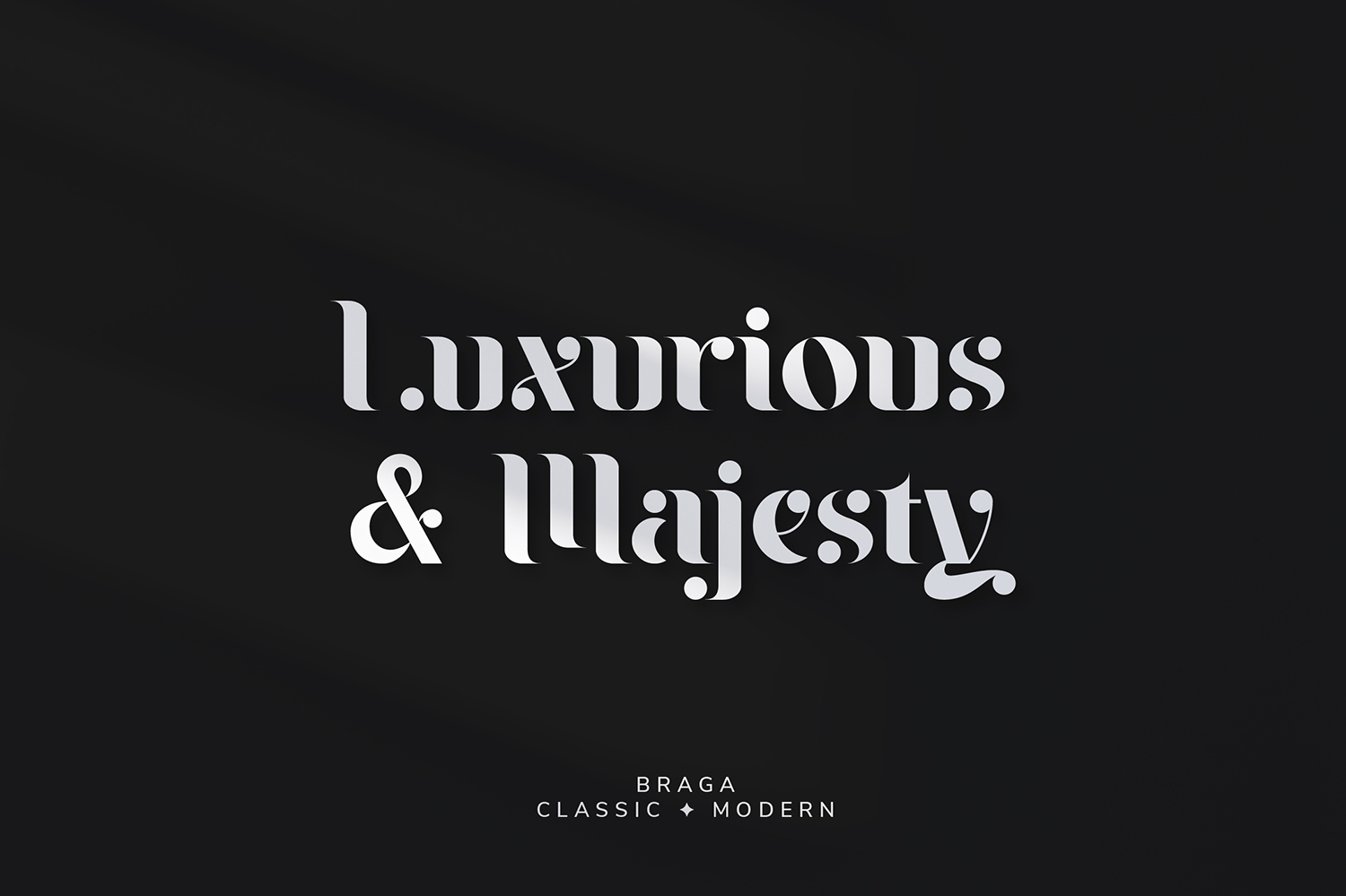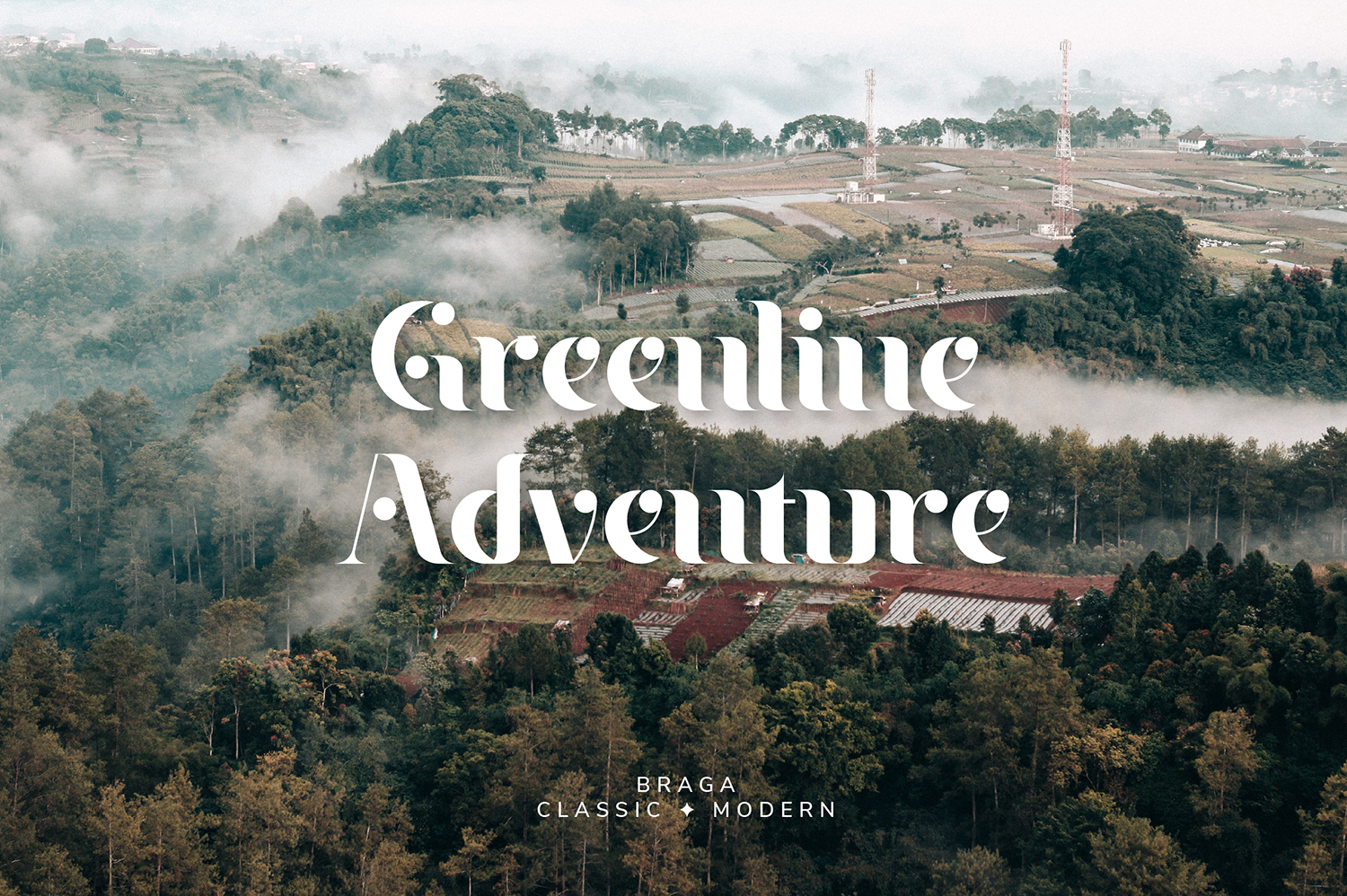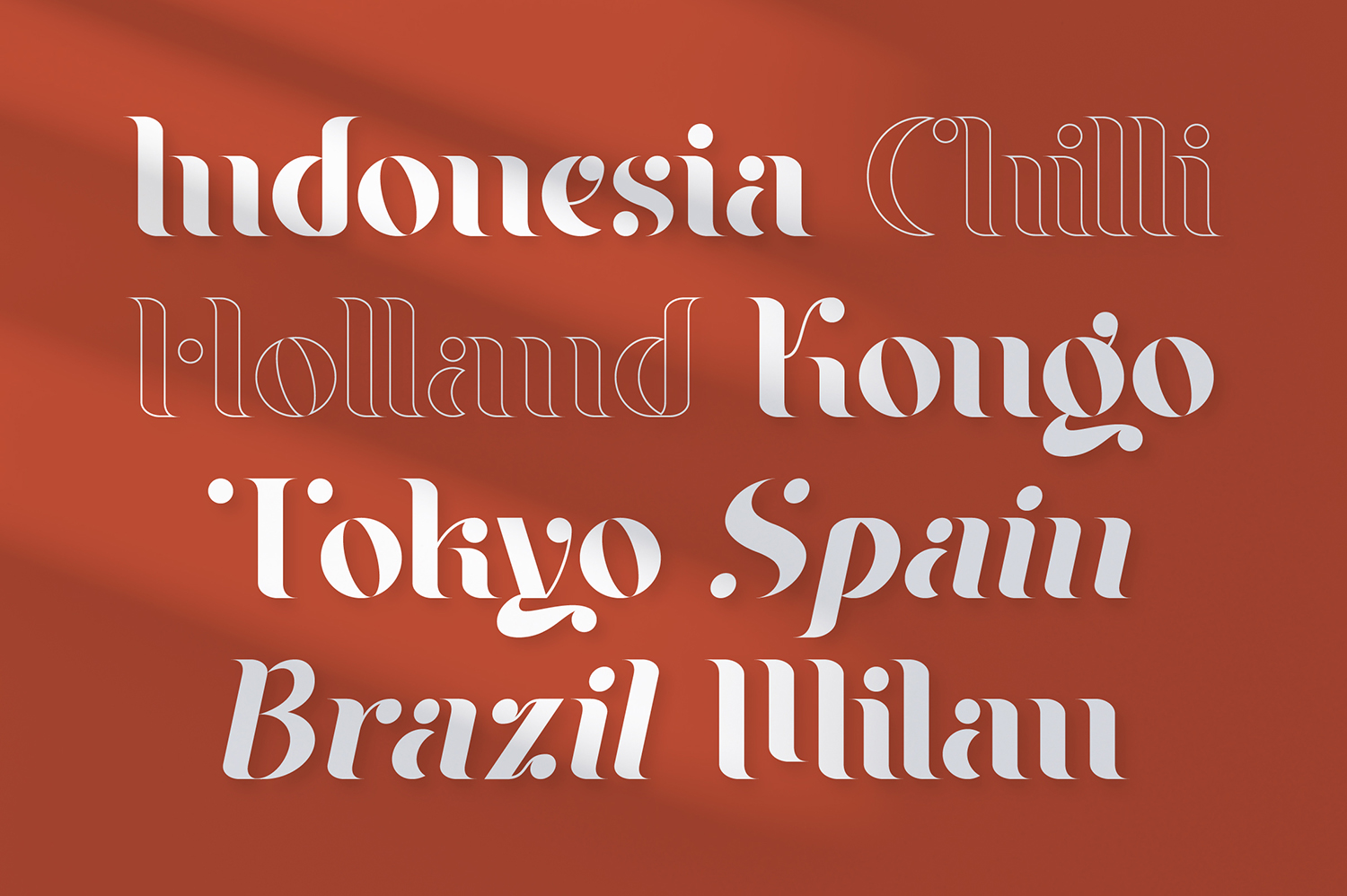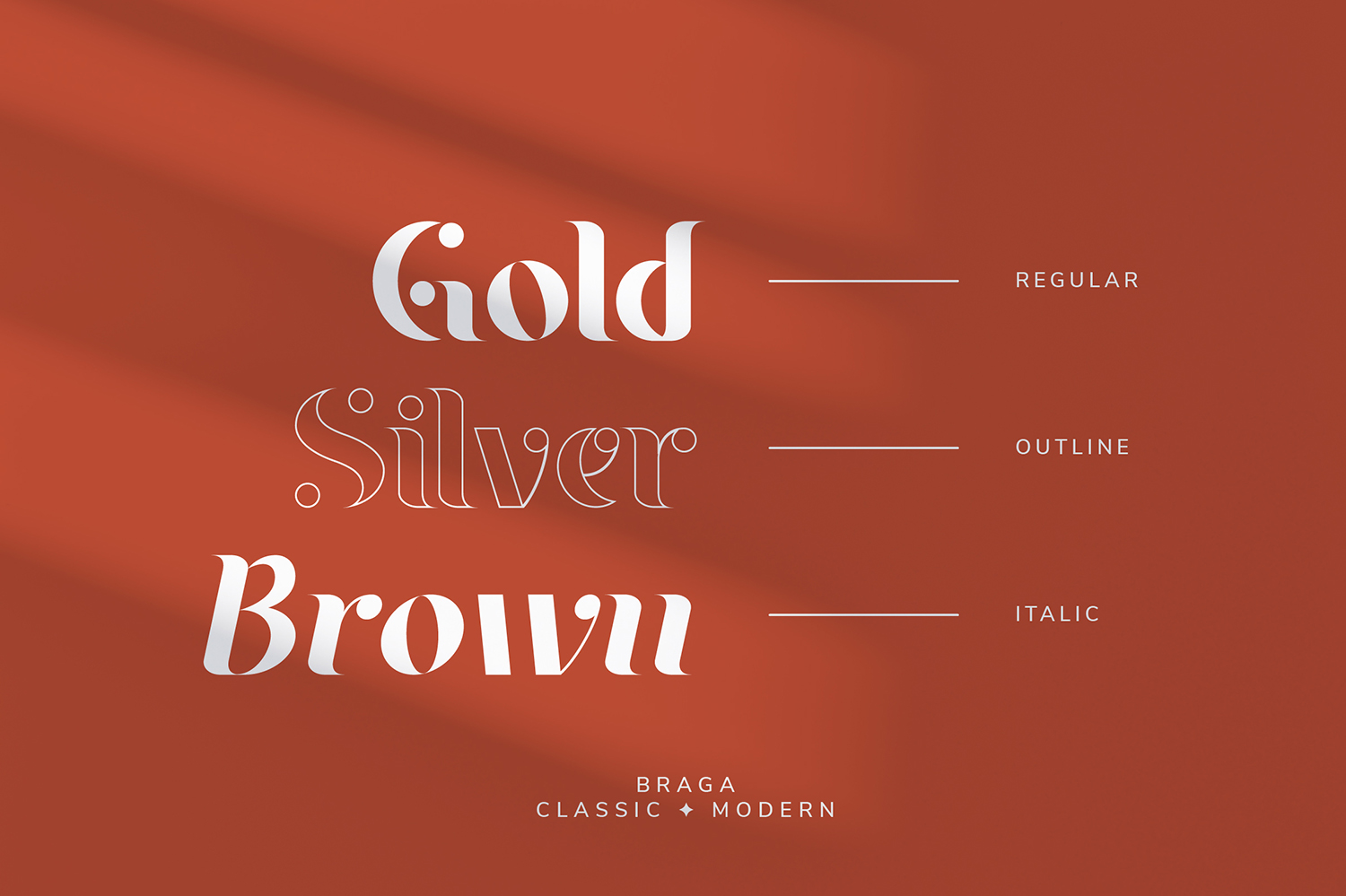
Braga Serif Free Font
Meet Braga Serif Free Font, an elegant and fashionable serif font that exudes class and trendiness. Embrace its captivating style to craft stunning wedding invitations, exquisite stationary art, attention-grabbing social media posts, and a variety of other visually striking creations. This free typeface was designed by a talented Lettertype Studio.Β  If you like it don’t forget to check out the full version.